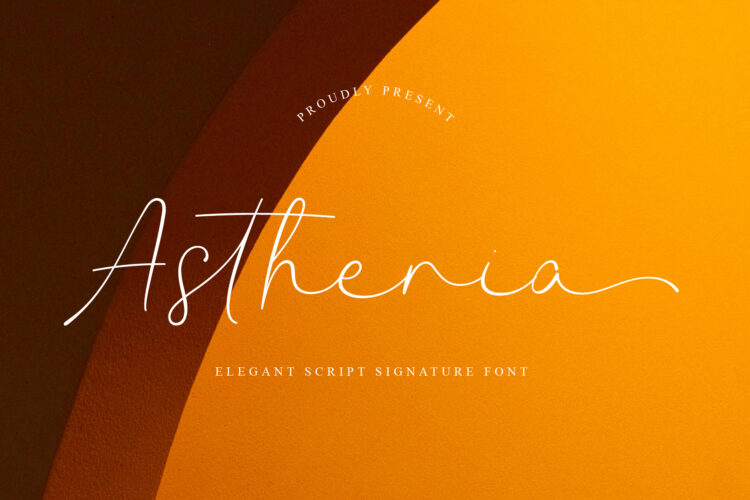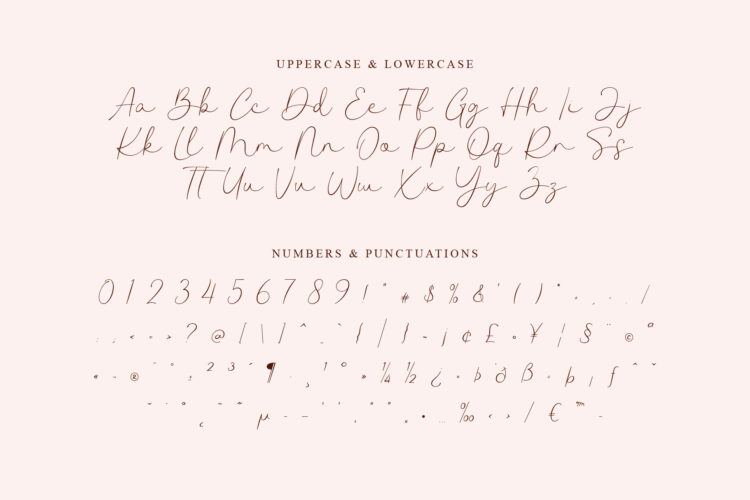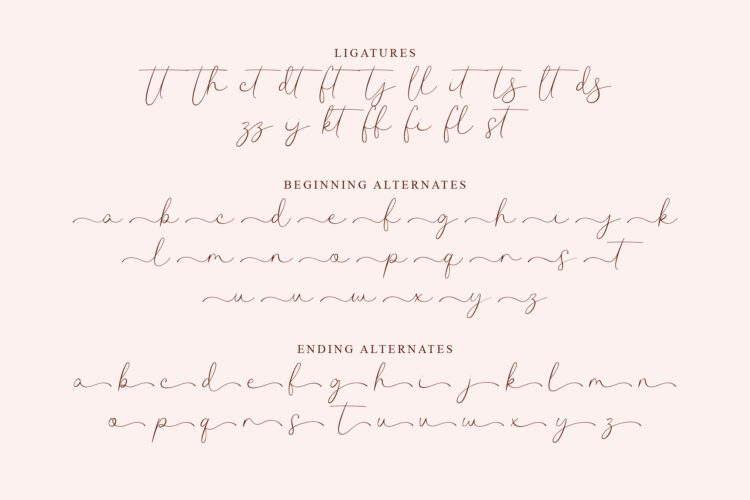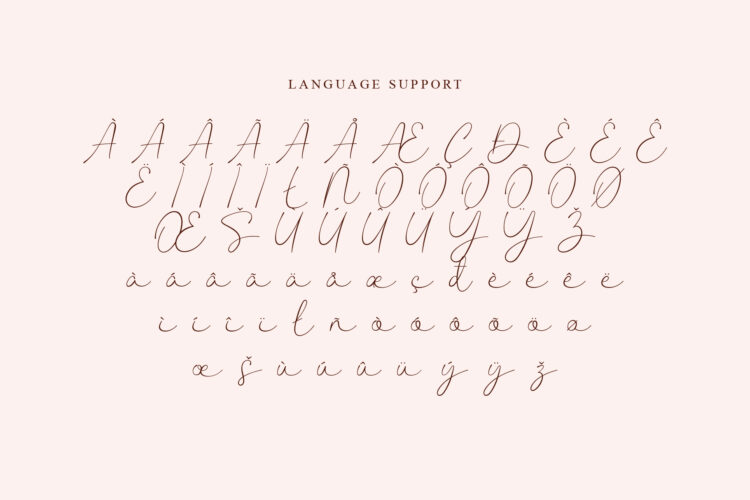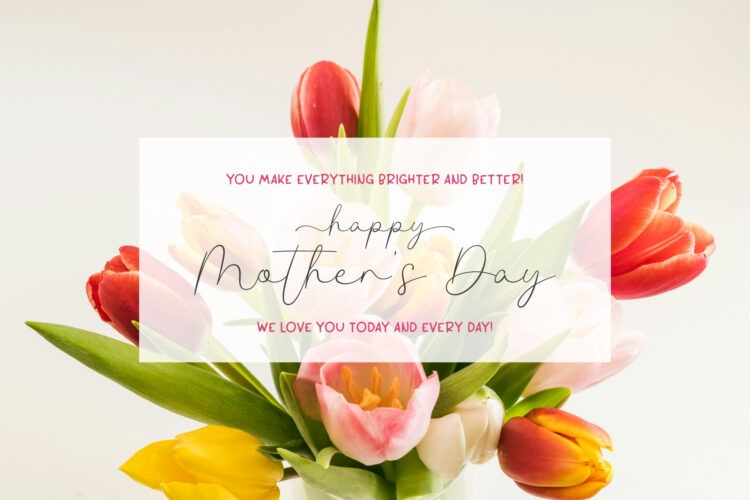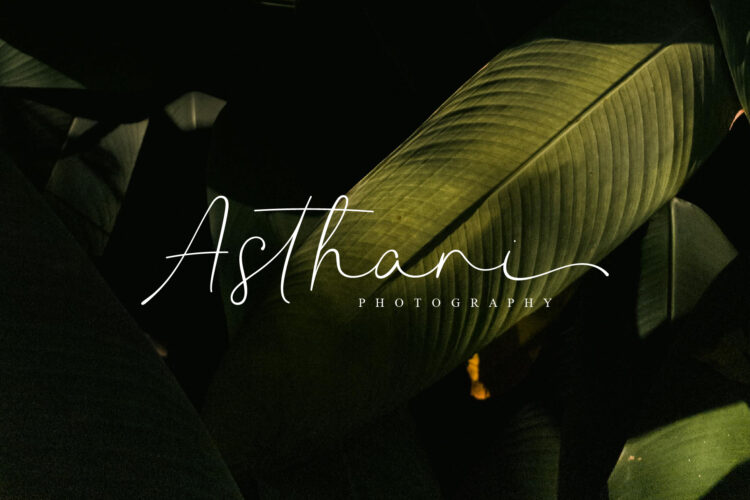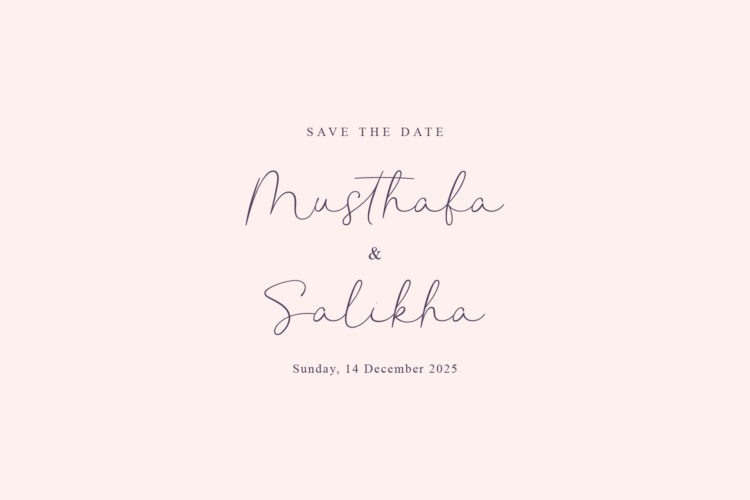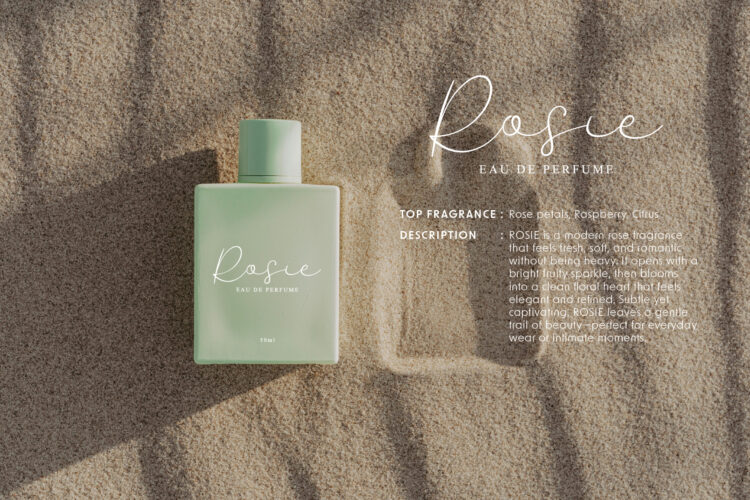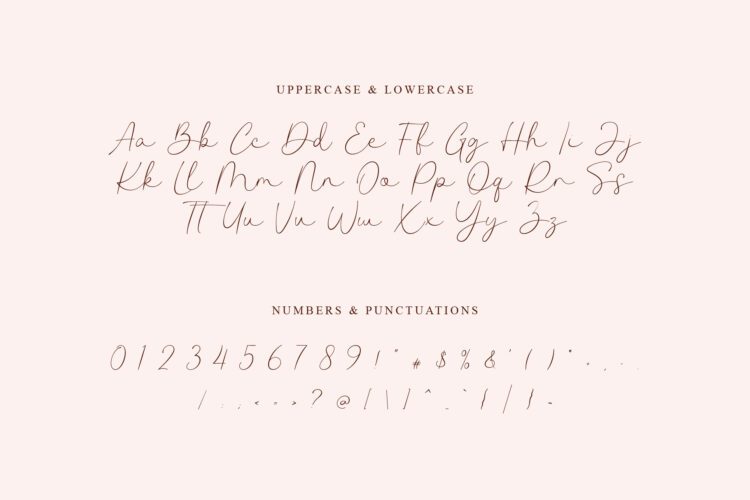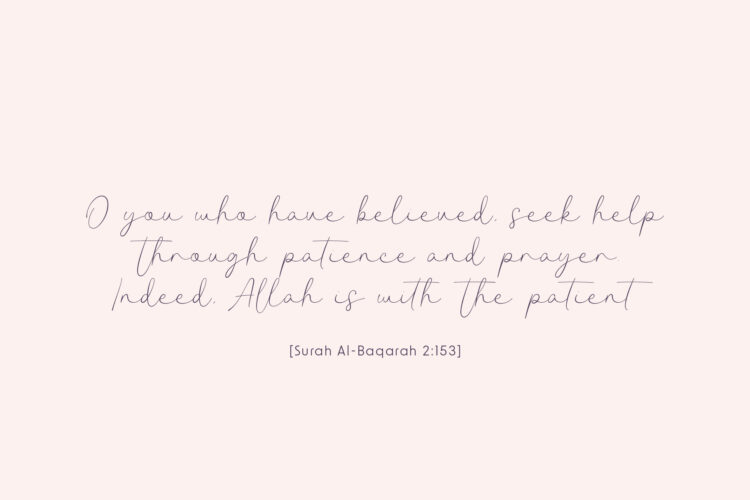
Introducing PGR Astheria Script, an elegant script signature font crafted to add beauty, charm, and sophistication to your designs. With its smooth handwritten flow and stylish curves, Asthenia is perfect for branding, logos, wedding designs, social media, packaging, quotes, invitations, and many other creative projects that deserve to stand out.
This font includes uppercase & lowercase letters, numbers, and basic punctuation, giving you everything you need for versatile design work.
Create stunning, stylish, and memorable designs with PGR Asthenia Script.